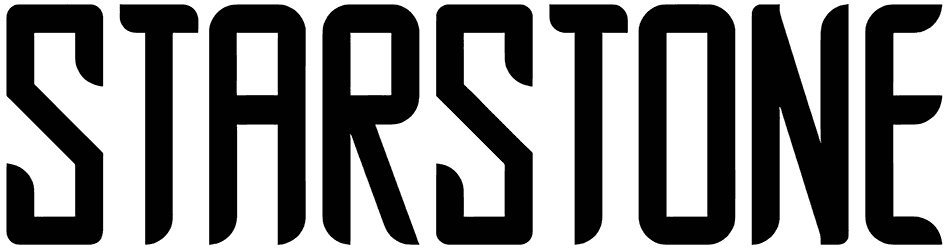
Starstone Font
Your design gets to amaze viewers with its unique lettering when you choose a space font with a modern visual. Starstone font, with its tall and condensed characters, can easily convey a strong mood. There is no support for numerals, but this industrial font can serve as an apt item for varied formal and informal projects.
Starstone – A Display Font. This typeface with modern style looks very interesting for loads of different projects and promotions. It is perfect to be used on any projects likes website, for your social media branding, pinterest banners, printed products, and more, especially that needs outers space touch.What’s included :